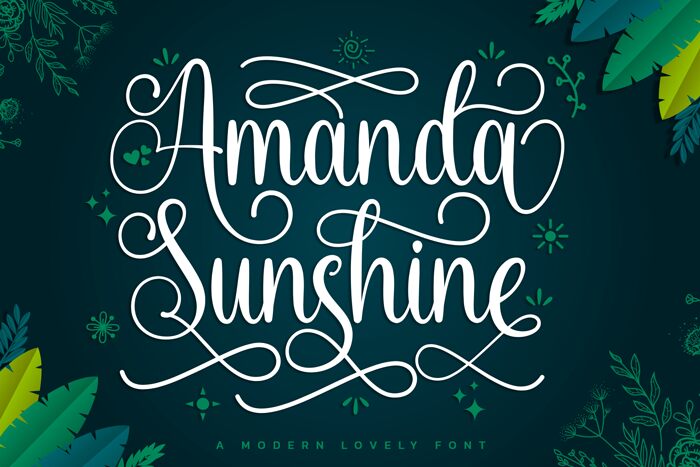
Amanda Sunshine, a mesmerizing calligraphy font crafted by Hoperative, adds elegance and charm to any project. Its semi-light weight delicately balances sophistication with readability, making it perfect for romantic wedding invitations or heartfelt love letters. With its semi-condensed width, Amanda Sunshine gracefully fits on small labels or packaging designs, ensuring your product stands out on the shelves. Whether used in branding for luxury cosmetics or creating stunning social media graphics, this font effortlessly catches attention and exudes a sense of grace and refinement. Let Amanda Sunshine illuminate your creative endeavors with its enchanting allure.